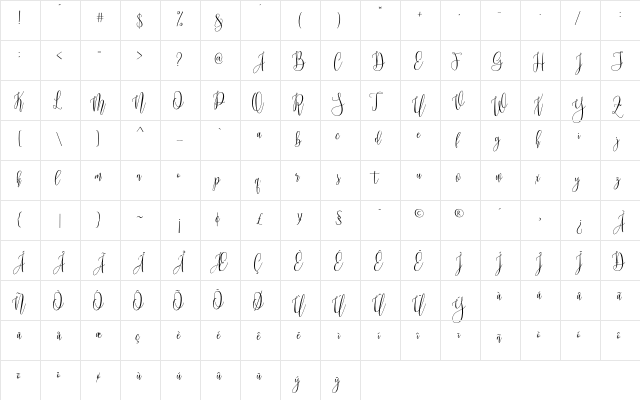
Mollinda Script Demo Regular
Design Context for Mollinda Script Demo Typeface
Mollinda Script Demo brings a calligraphic fluidity to the page — its connecting strokes and expressive curves give it an unmistakably human quality.
Font Pairing: Combine Mollinda Script Demo with a simple geometric sans for maximum contrast — the tension between flowing curves and clean structure is a classic typographic pairing.
Pro Tip: Use Mollinda Script Demo for short runs of text — names, titles, or taglines. Extended body copy in script faces tires the eye quickly.